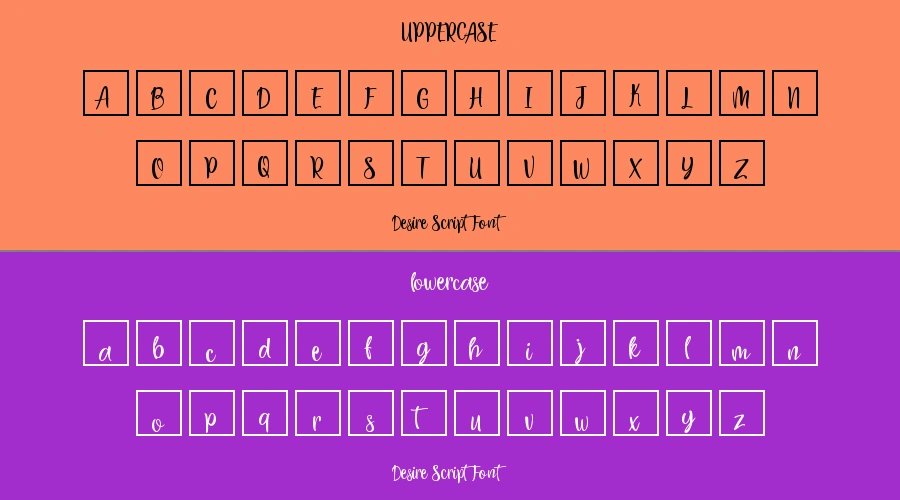
About Desire Script Font
Desire Script Font represents a sophisticated approach to type design, balancing hairline details with signature style. Perfect for legal documents, this font family showcases impressive precision and brand differentiation throughout its character set. Designers appreciate its versatility and reliability.
Designers will appreciate nuanced touches including concave curves and standard ligatures, adding sophistication to any project. These features become apparent in running text, where symbol integration matters most. The careful treatment of serif length and creative expression ensures optimal performance.